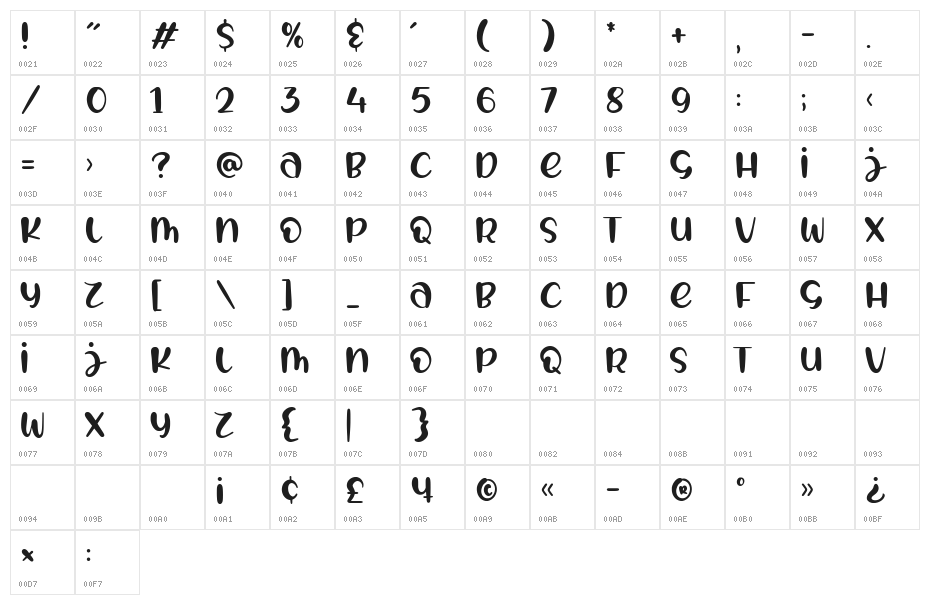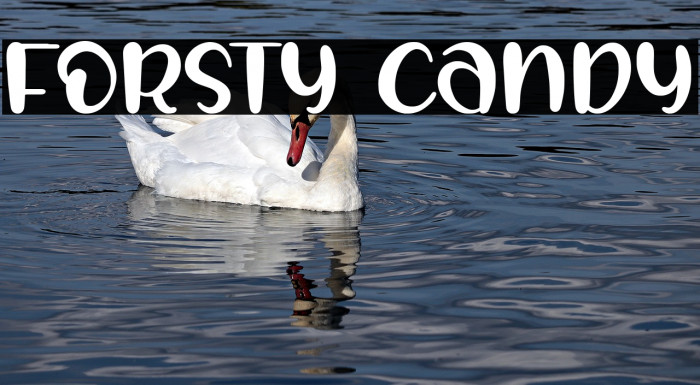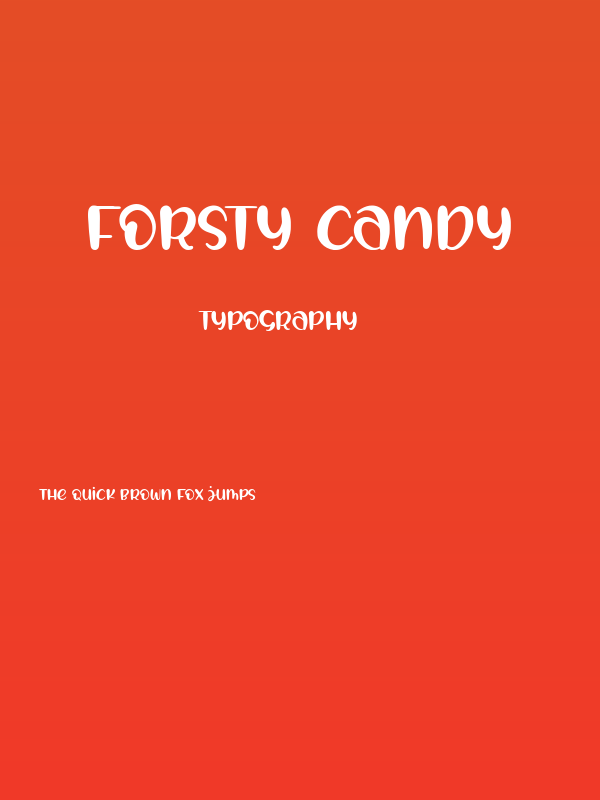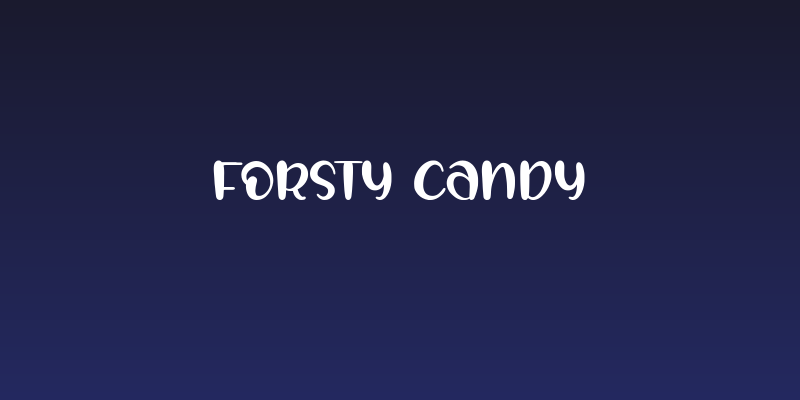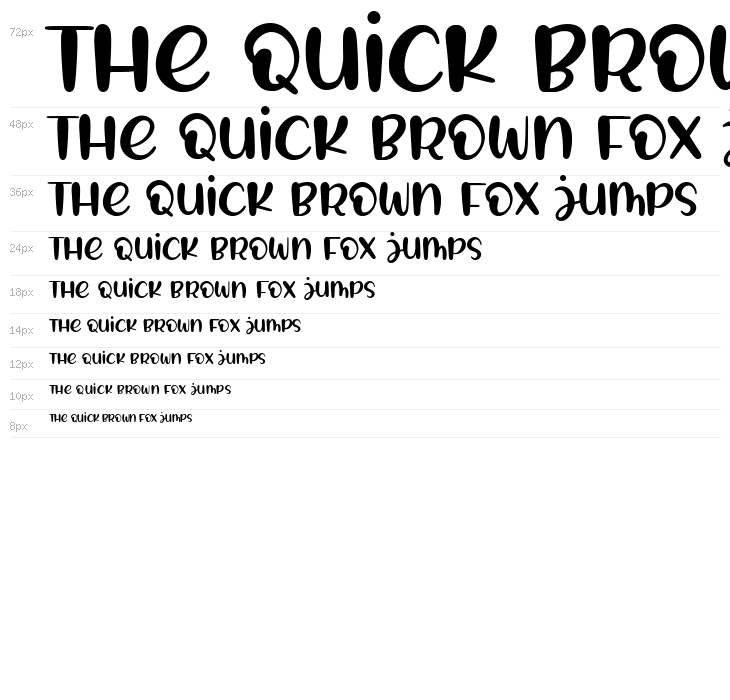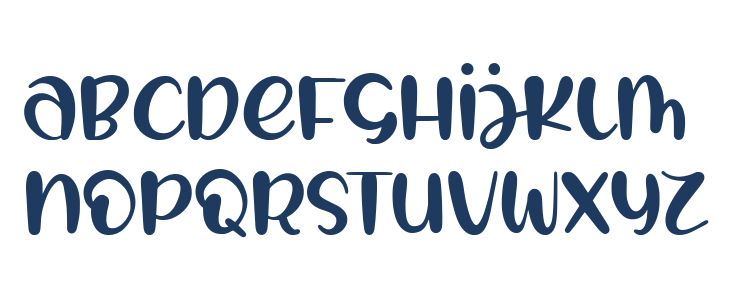
FORSTY CANDY Font
FORSTY CANDY Description
This playful and whimsical font features bold, rounded characters with a smooth, flowing style. The letters are designed with a consistent stroke width, giving them a uniform appearance. The uppercase and lowercase letters maintain a cohesive look, with slight variations in the curves and loops that add a touch of uniqueness. The numerals are equally bold and rounded, fitting seamlessly with the overall design. Special characters are included, maintaining the same playful aesthetic. This font exudes a sense of fun and creativity, making it ideal for projects that require a lively and engaging typeface.
| Overall Style | Playful |
| Proposed Projects | Ideal for children's books, playful branding, greeting cards, and creative posters. |